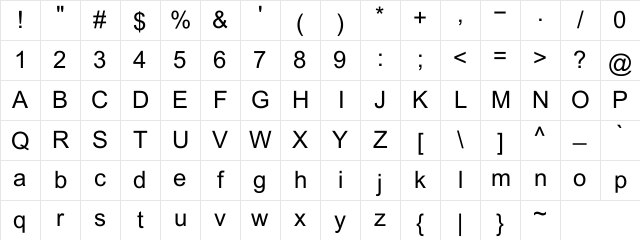
PDMS_SindhiMansehra Regular
Design Context for PDMS_SindhiMansehra
PDMS_SindhiMansehra is a composed and adaptable typeface that performs quietly and consistently across a wide range of design contexts.
Pro Tip: Use PDMS_SindhiMansehra in both headline and body roles to test its range before committing to a single application.